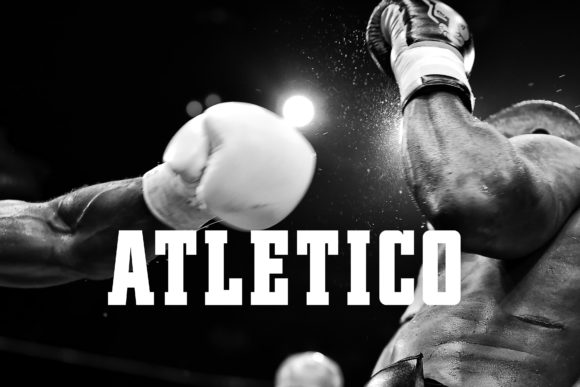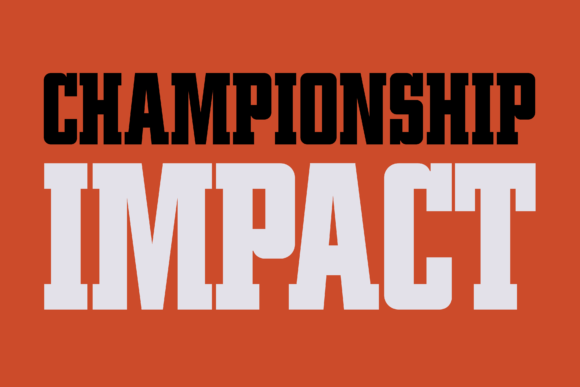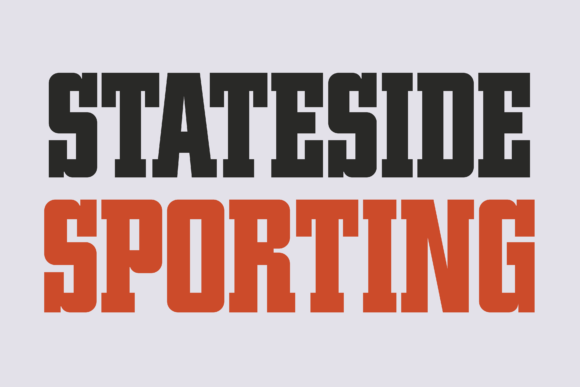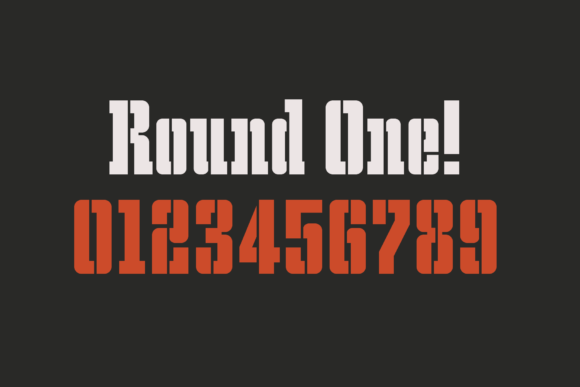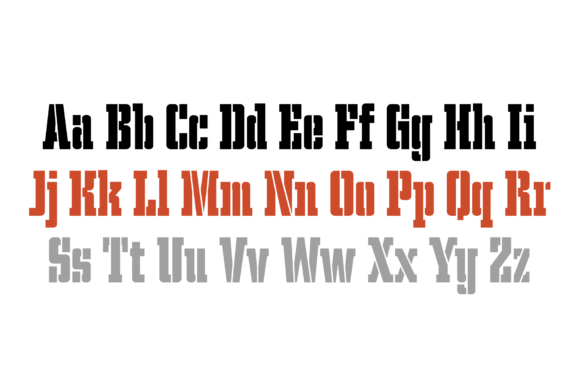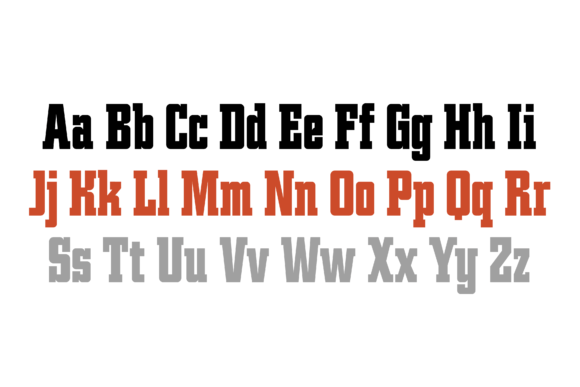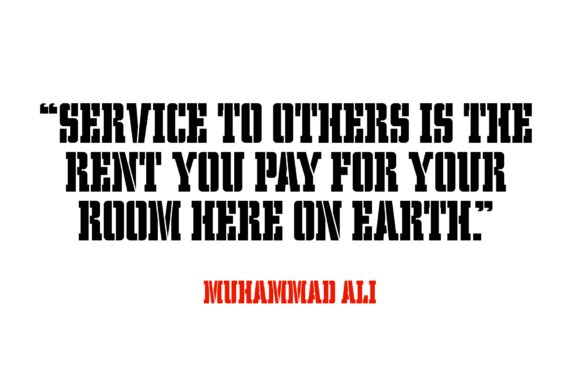
Atletico Font
ATLETICO FONT SPECIMEN
Atletico is a bold slab serif designed to be used as a high-impact display font. It is well suited to sports events, posters, and editorial work.